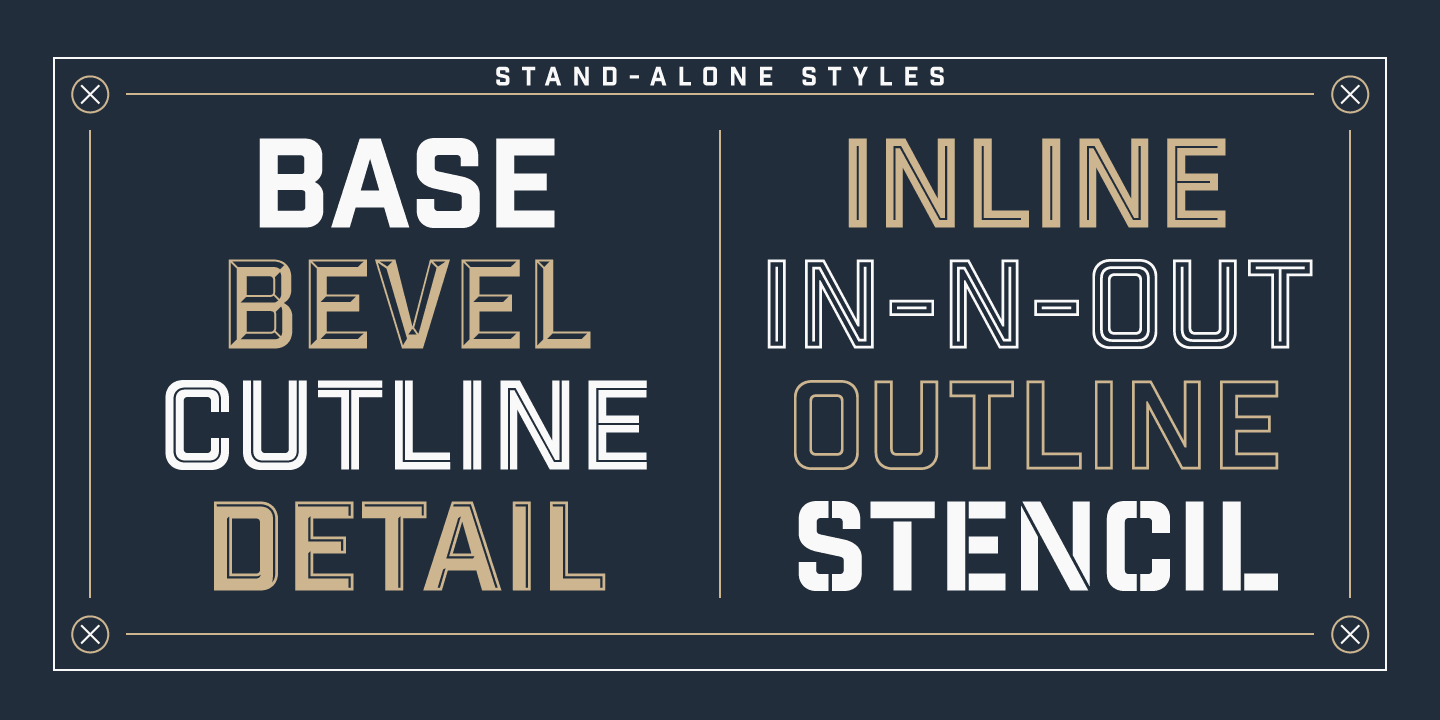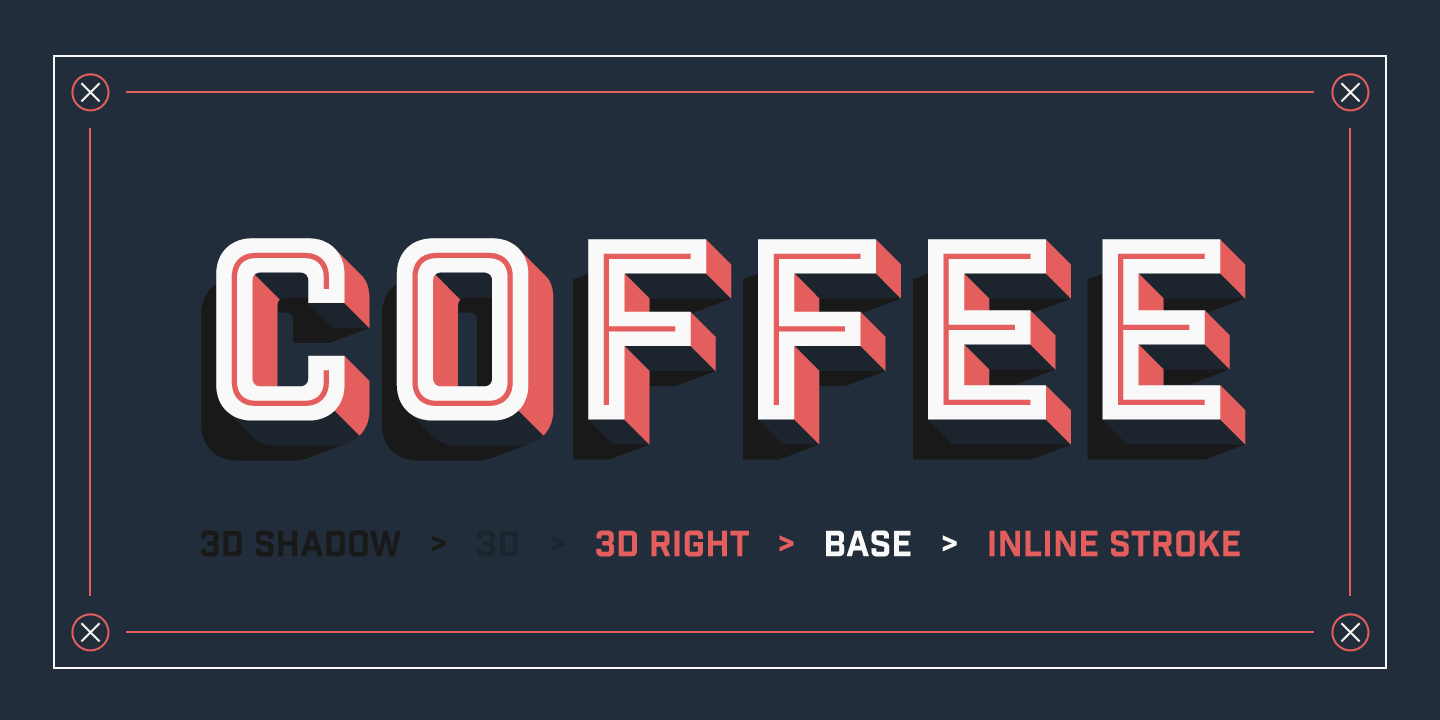
Industry Inc
About Industry Inc
Industry Inc is a collection of type based on the bold uppercase style of the Hold Fast Industry family. The typeface comprises numerous stand-alone styles along with a layered type system. Think of it as a toolbox equipping designers with extensive typographic…